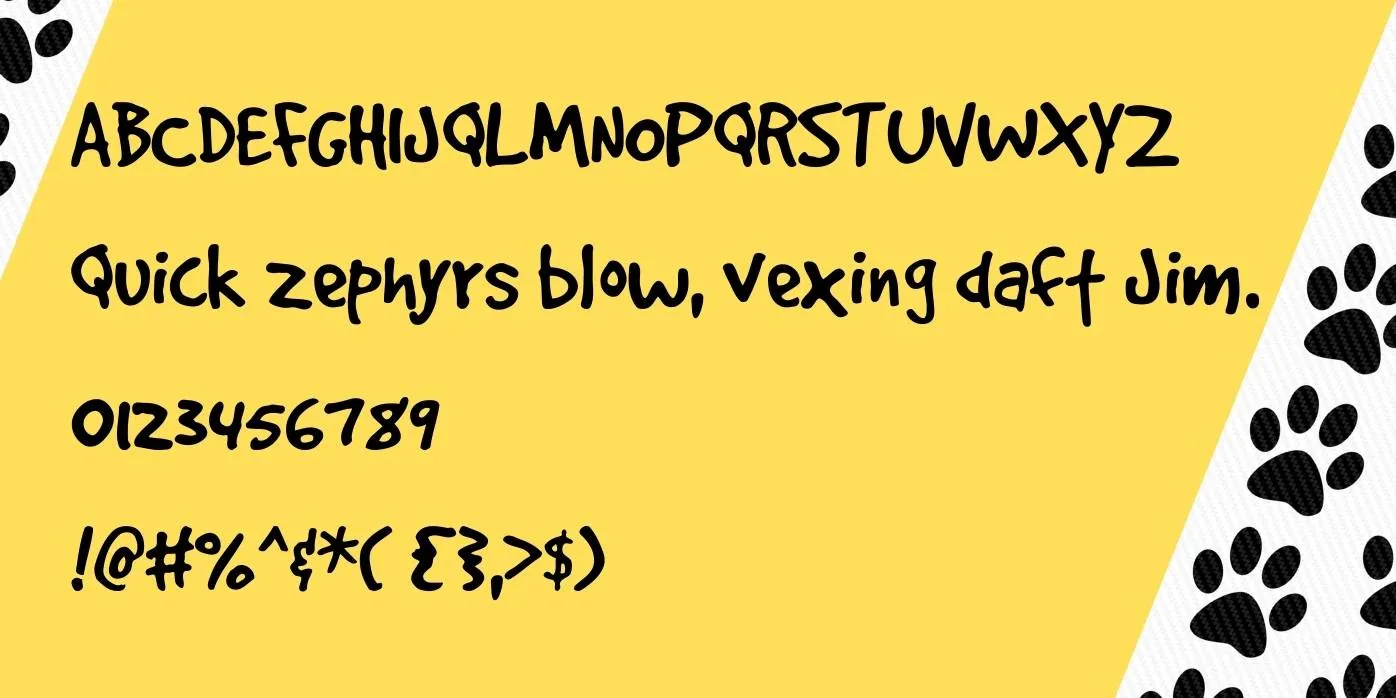
Good Dog Font
Good Dog Font is a beautiful and pretty cool shape font. It Belongs to a  Fancy font family. The designer of this new style font is Fonthead Design. You can examine this typeface by watching the image above.
The font family has a bold style with different weights containing Uppercase and Lowercase Letters, Numbers / Numerals, Beautiful Symbols, many alternate characters, and some other special symbols, etc. The font has TrueType features and is available on our website for download. Good Dog Font has the ability to support immense language for international users. One of the greatest things about this font is that it is at no cost for usage you can use it anywhere you want whether it is for personal purposes and whether it is for commercial usages.